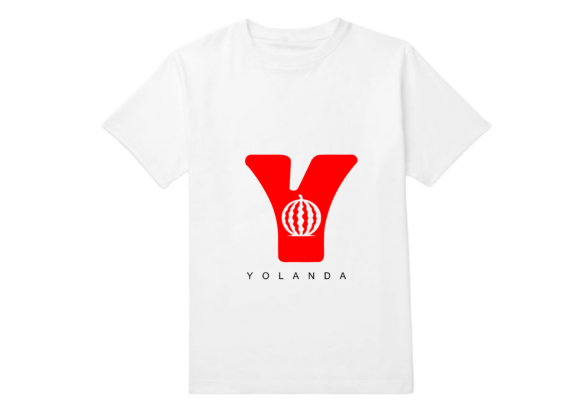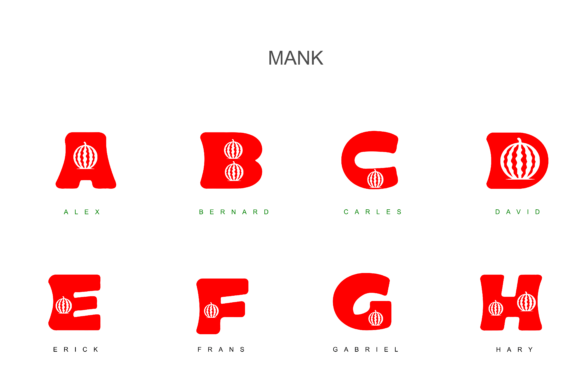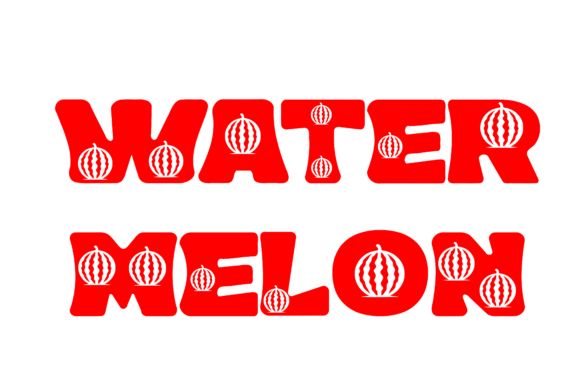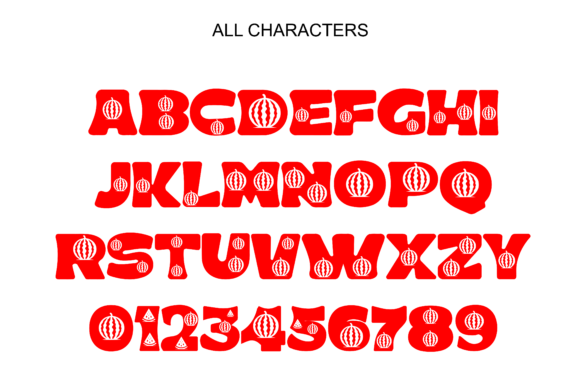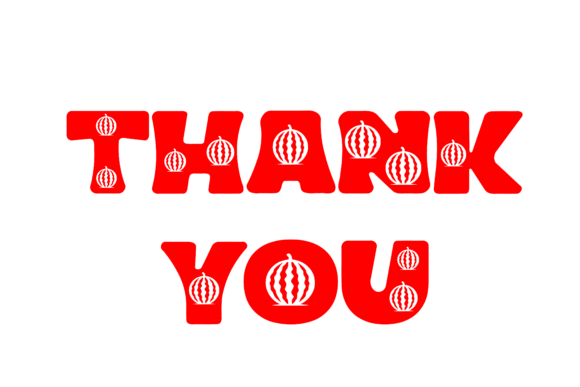
Introduction to Mank Font
Do you remember the joy of coloring outside the lines, of scribbling wild and free, of bringing your imagination to life with every scribble and stroke? For many of us, that carefree spirit of childhood is a cherished memory, one that we strive to recapture in our creative pursuits. And for designers, that’s exactly what the Mank Font offers – a chance to tap into that unbridled enthusiasm and infuse it into our designs.
As a design resource, Mank Font stands out for its unique blend of whimsy and sophistication, making it an invaluable asset for a wide range of creative projects. From educational tools to children’s books, and from branding projects to digital art, Mank Font is the perfect tool to add a touch of magic to your work.
Key Features of Mank Font
- Unique, stylish design that can add a touch of sophistication to any creative project
Honest Review: Mank Font
As a designer, I’m always on the lookout for high-quality design resources that can elevate my creative projects. Recently, I had the chance to work with the Mank Font, and I’m excited to share my honest review with you.
- The Mank Font has a unique, modern aesthetic that’s perfect for contemporary designs.
- The Mank Font is not suitable for use in small text sizes, as it can become difficult to read.
Overall, I’m impressed with the Mank Font’s versatility and high-quality design. While it has some limitations, it’s an excellent choice for designers working on creative projects that require a modern, stylish font.
Mank Font is a high-quality design resource that can elevate your creative project. With its unique style and transparent background, it’s perfect for adding a touch of sophistication to your designs.
Mank Font is perfect for a variety of creative projects, including:
- Poster design